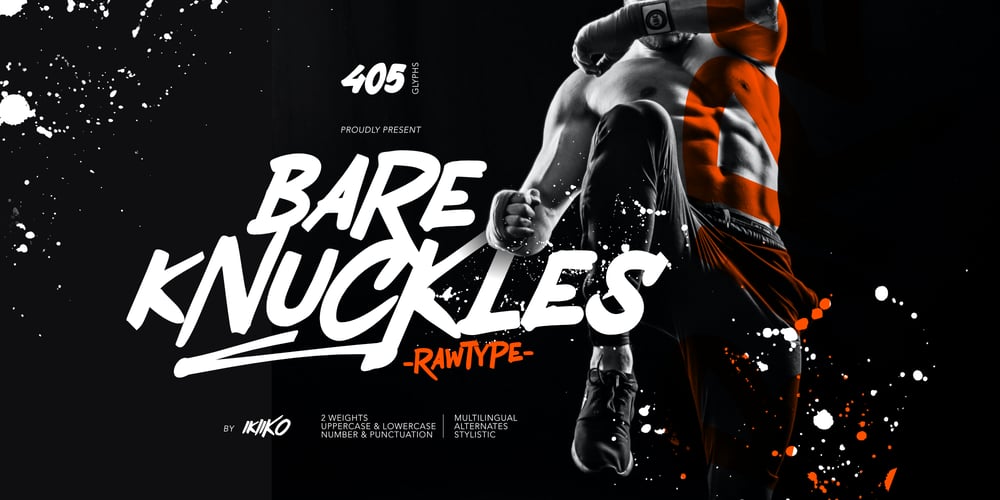
Bare Knuckles Font Family was designed by Wahyu Eka Prasetya, Andhika Pradana and published by IKIIKOWRK. Bare Knuckles contains 2 styles and family package options. Introducing Bare Knuckles – Rawtype, created by ikiiko.Bare Knuckles is a raw and expressive brush font with a touch of street style. This type has a freestyle shape with a bold lines characterize this font. This typeface is perfect for an extreme sport event, poster, flyer, magazine cover, streetwear brand, fashion youth, quotes, or stylish text overlay to any background image.What’s included? Uppercase & Lowercase Number & Punctuation Alternates & Stylistic Multilingual Support Enjoy our font and if you have any questions, you can contact us by email : ikiikowrk@gmail.com